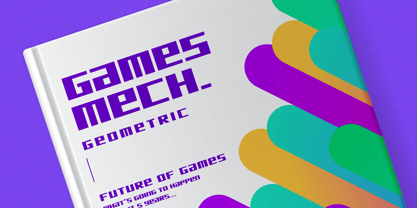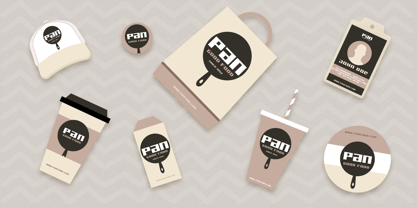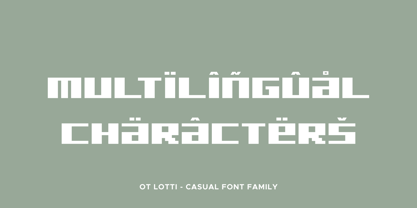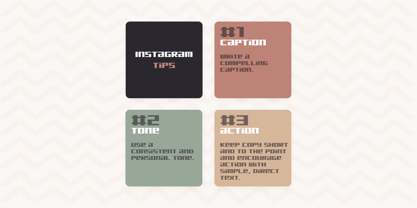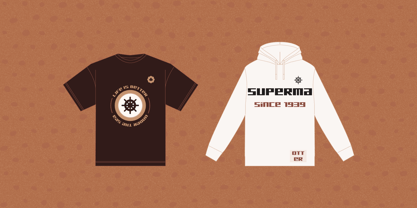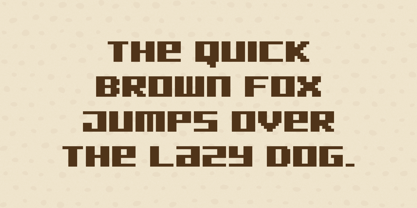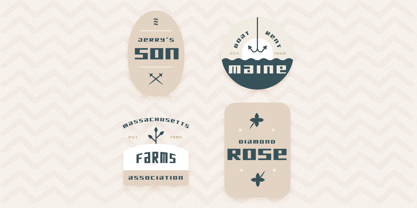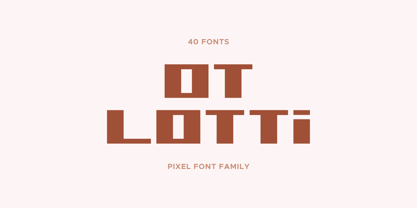
OT Lotti is a bold pixel display typeface with textured styles, outlines, and italics. Perfect for posters, games, branding, streetwear, and digital design.
Built on a strong geometric pixel grid, OT Lotti maintains clarity and impact while offering a wide range of stylistic personalities. From clean and readable to heavily textured and worn, the family provides designers with flexible options for creative typography.
The typeface includes numerous stylistic instances such as Brush, Cut, Eroded, Grit, Ink, Rough, Rust, Scratch, and Worn. Each style is paired with matching Italic and Outline versions, giving designers the freedom to layer, outline, or emphasize text for dramatic visual effects.
OT Lotti is ideal for posters, album covers, branding, gaming graphics, streetwear designs, digital artwork, packaging, and editorial titles. The combination of pixel structure and distressed textures makes it perfect for projects that need a retro-digital feel with modern creative energy.